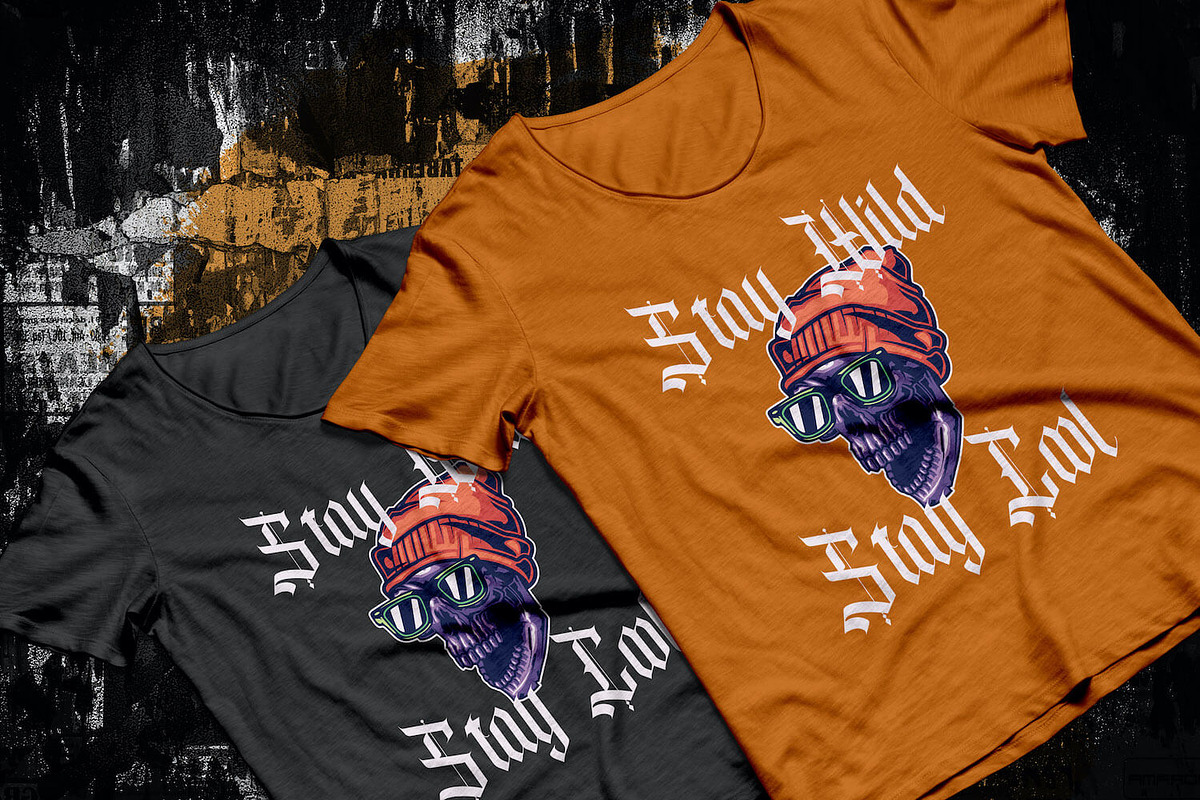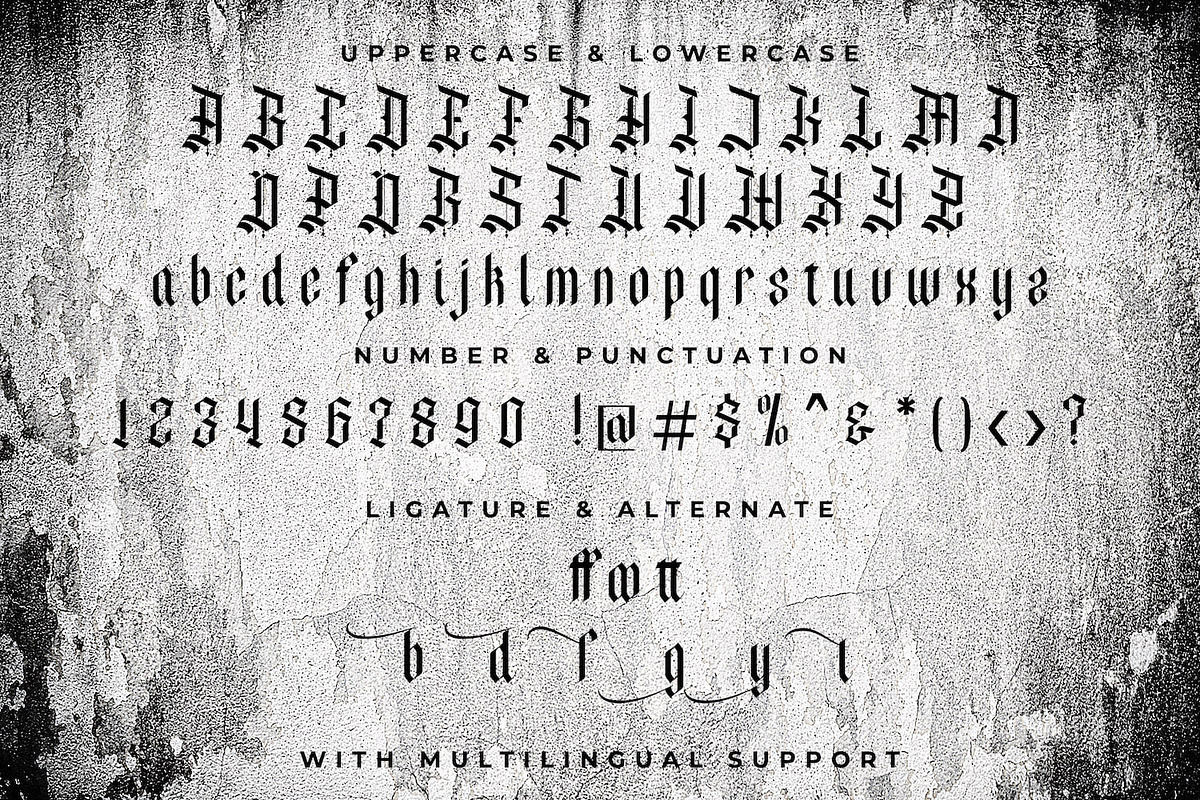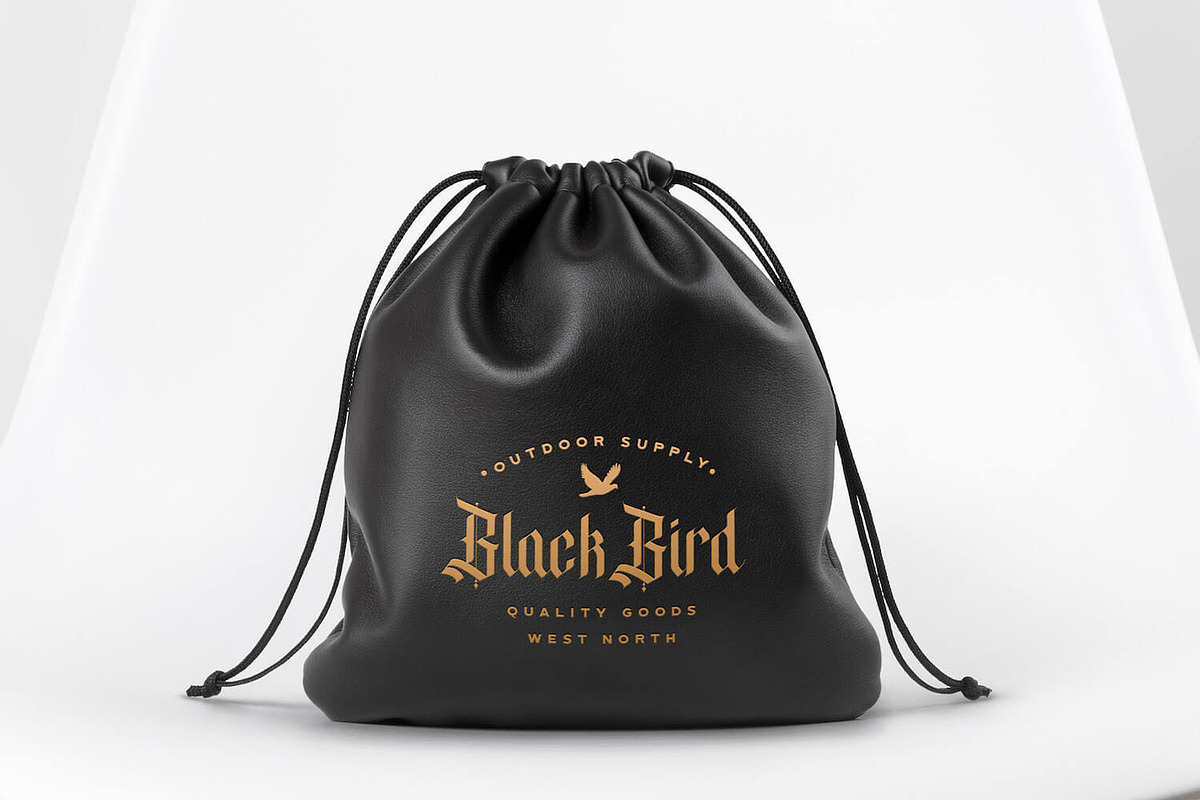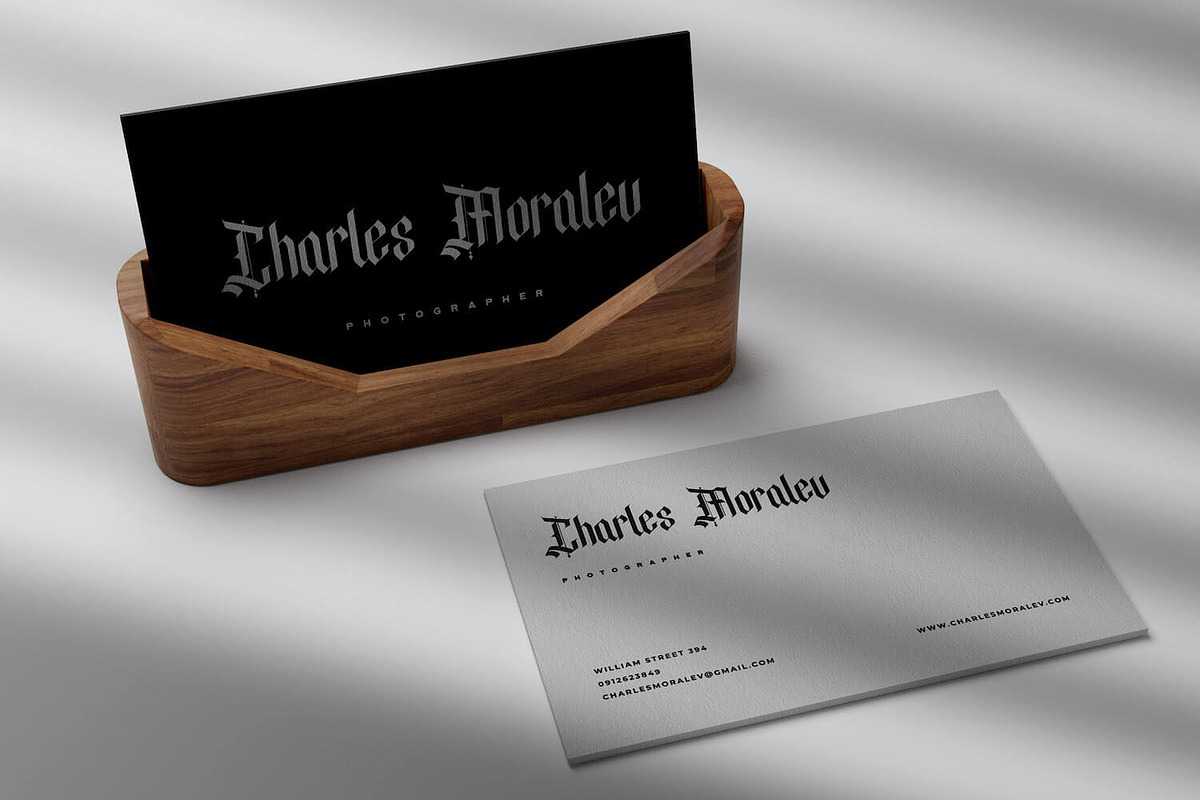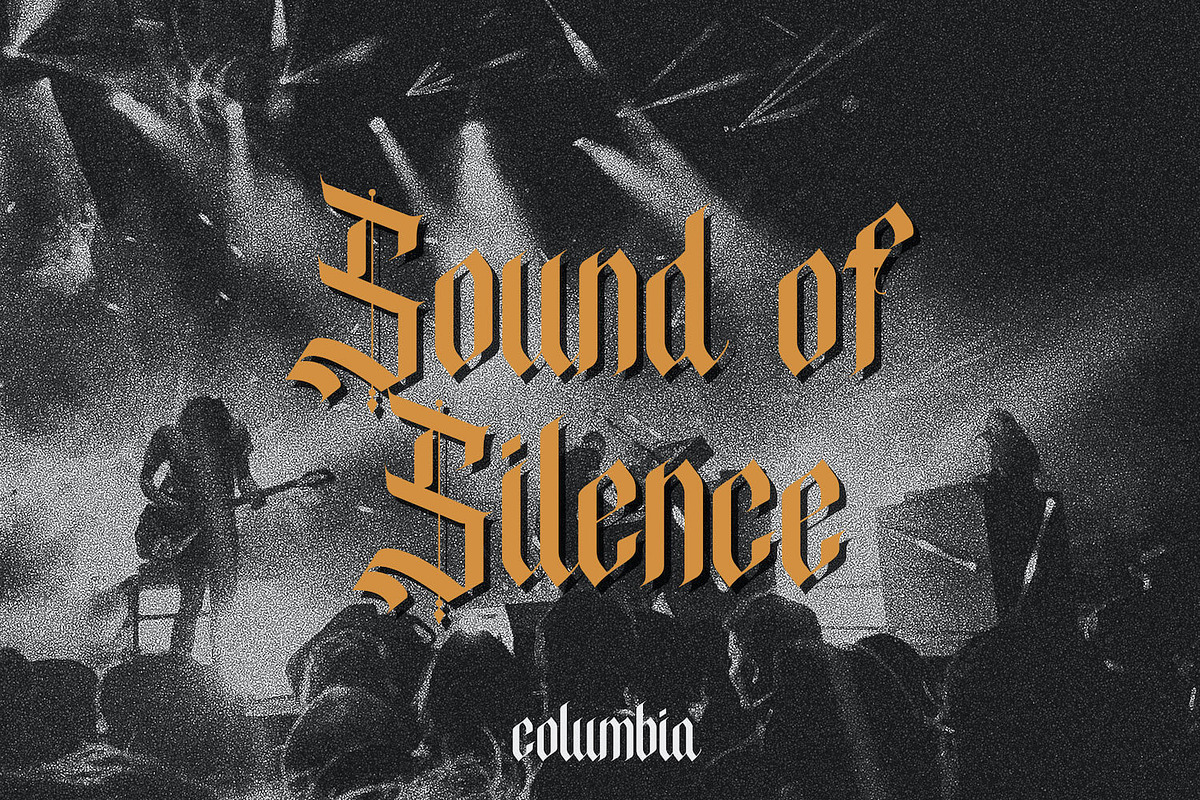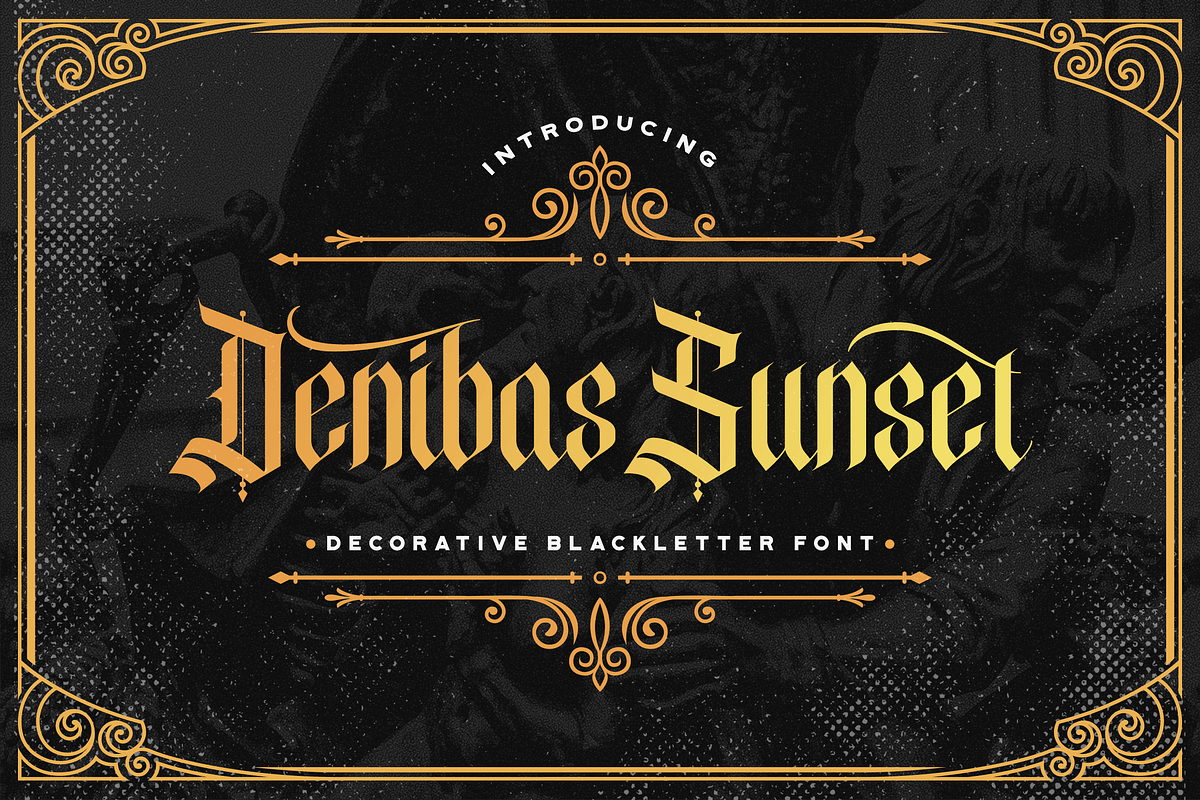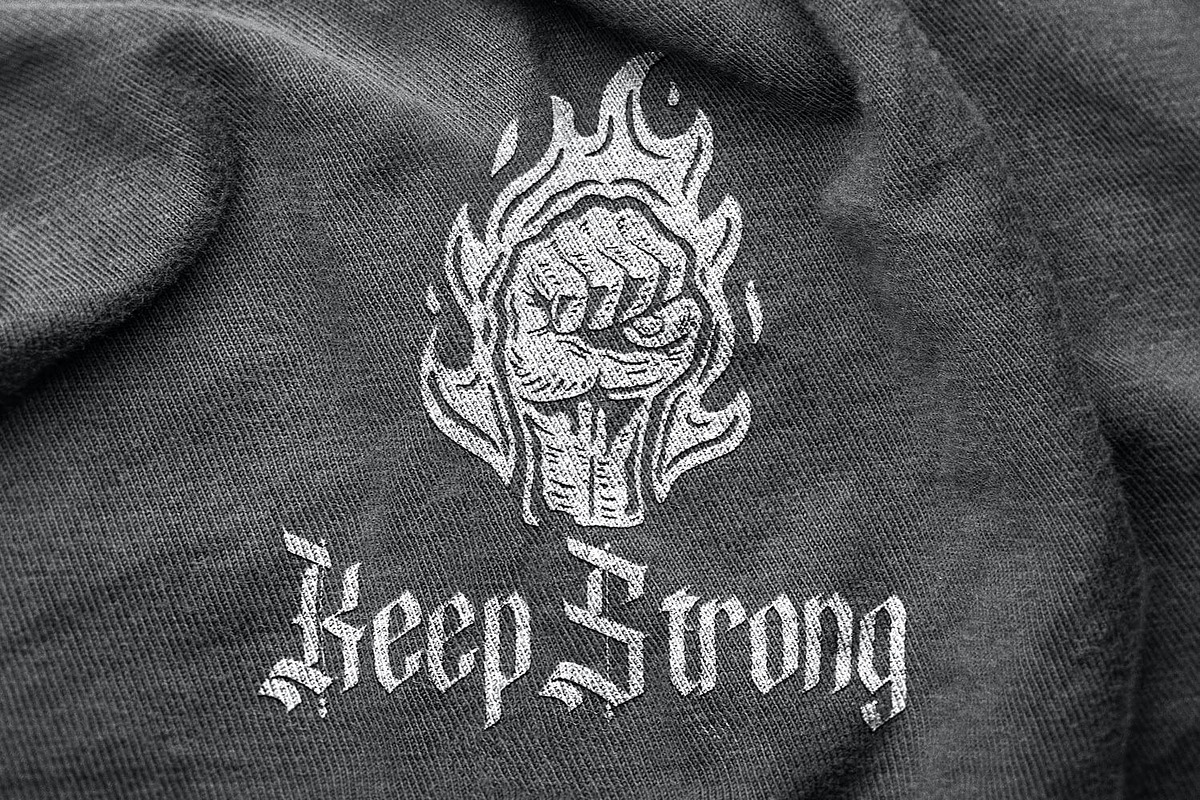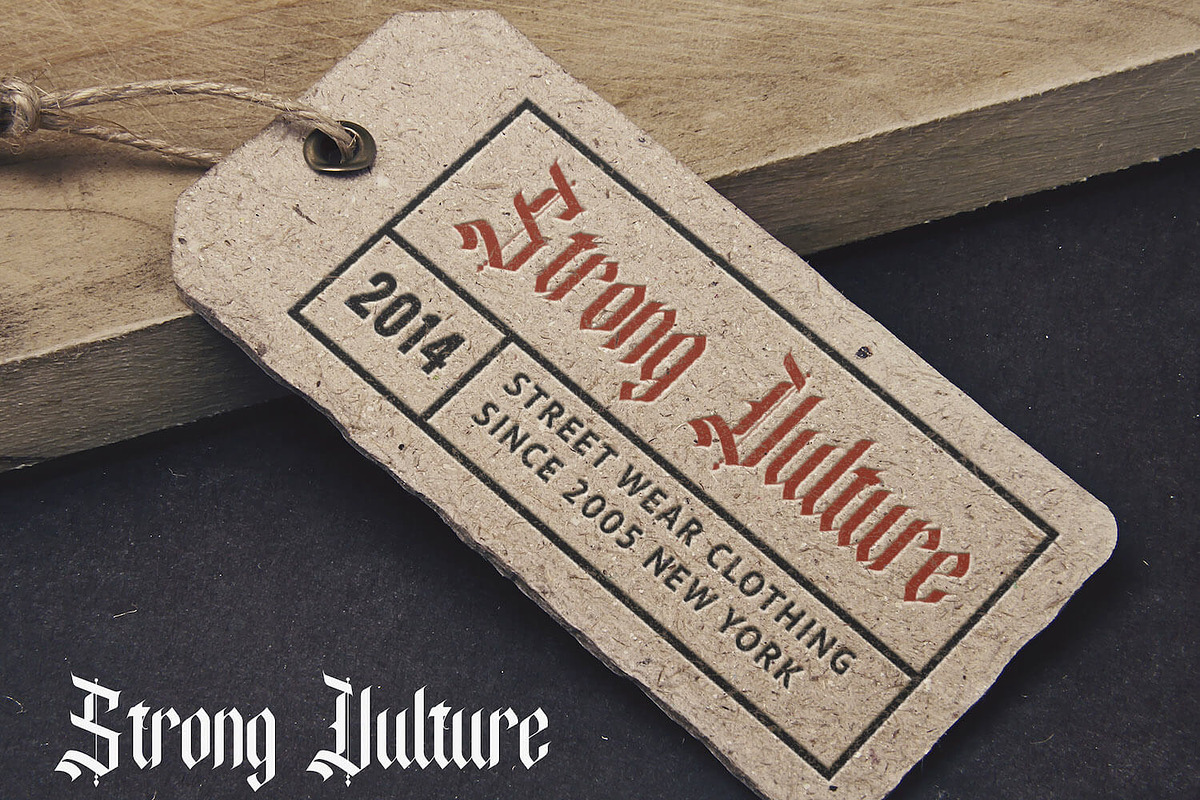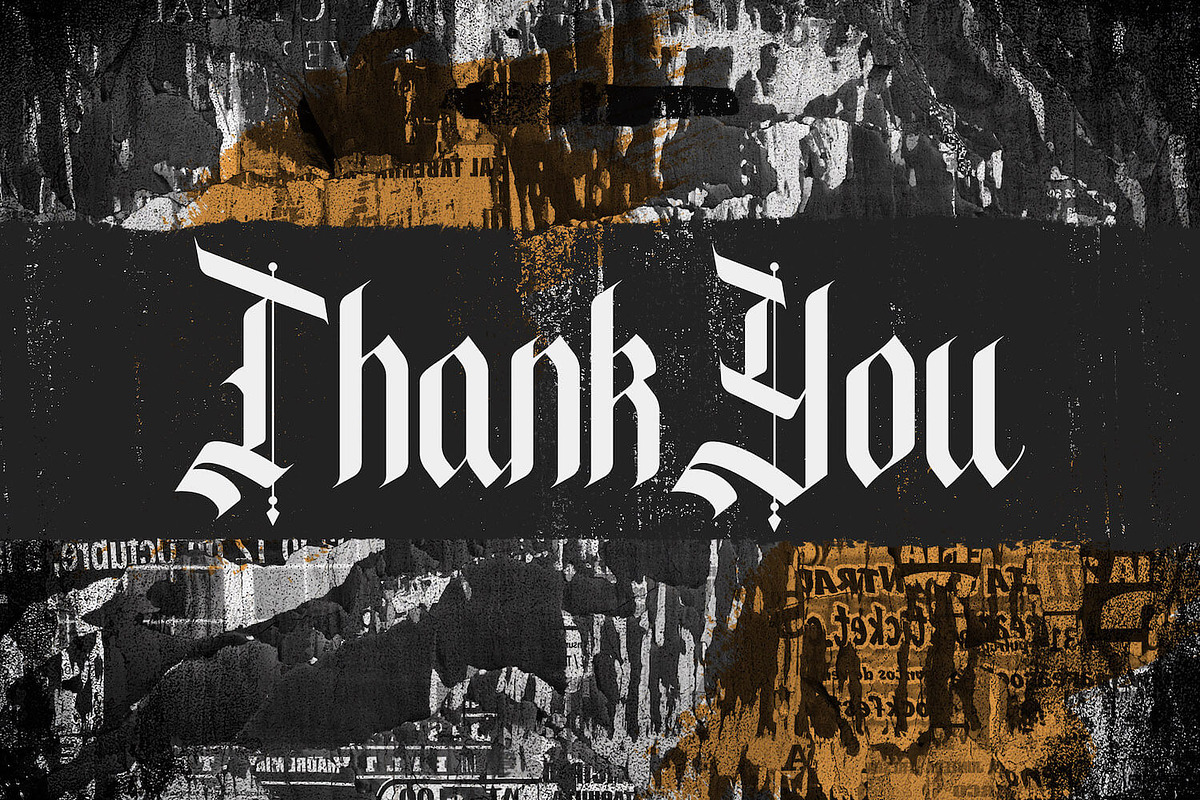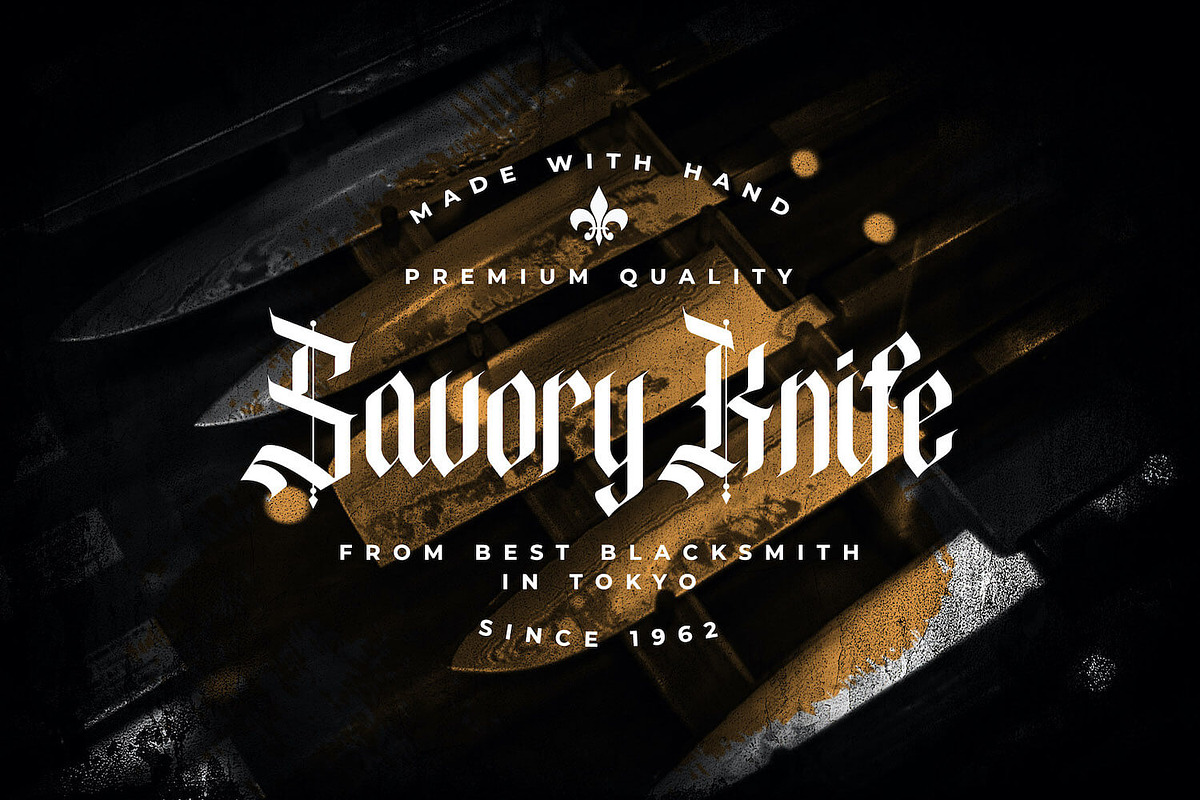
Denibas Sunset - Blackletter Font
Introducing Denibas Sunset - Blackletter Font
Denibas Sunset is an incredibly authentic and daring blackletter font. Add this font to your favorite creative ideas and notice how it makes them stand out!